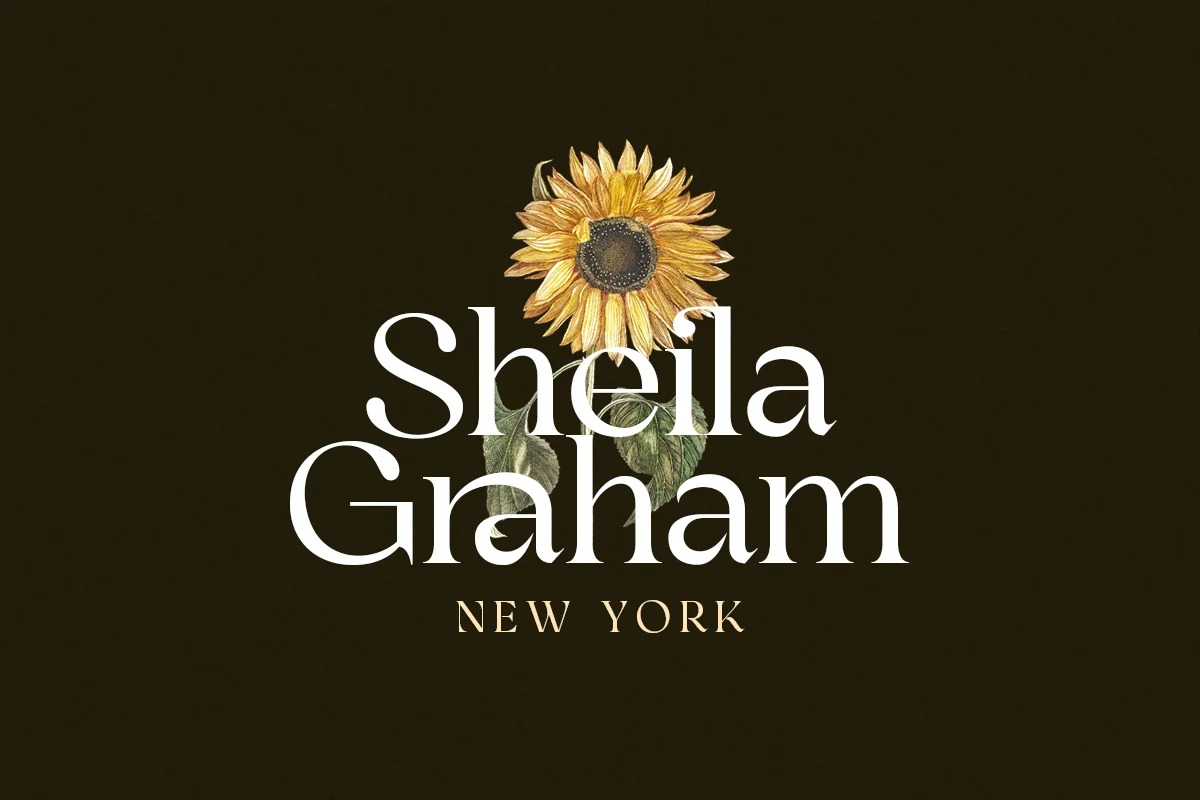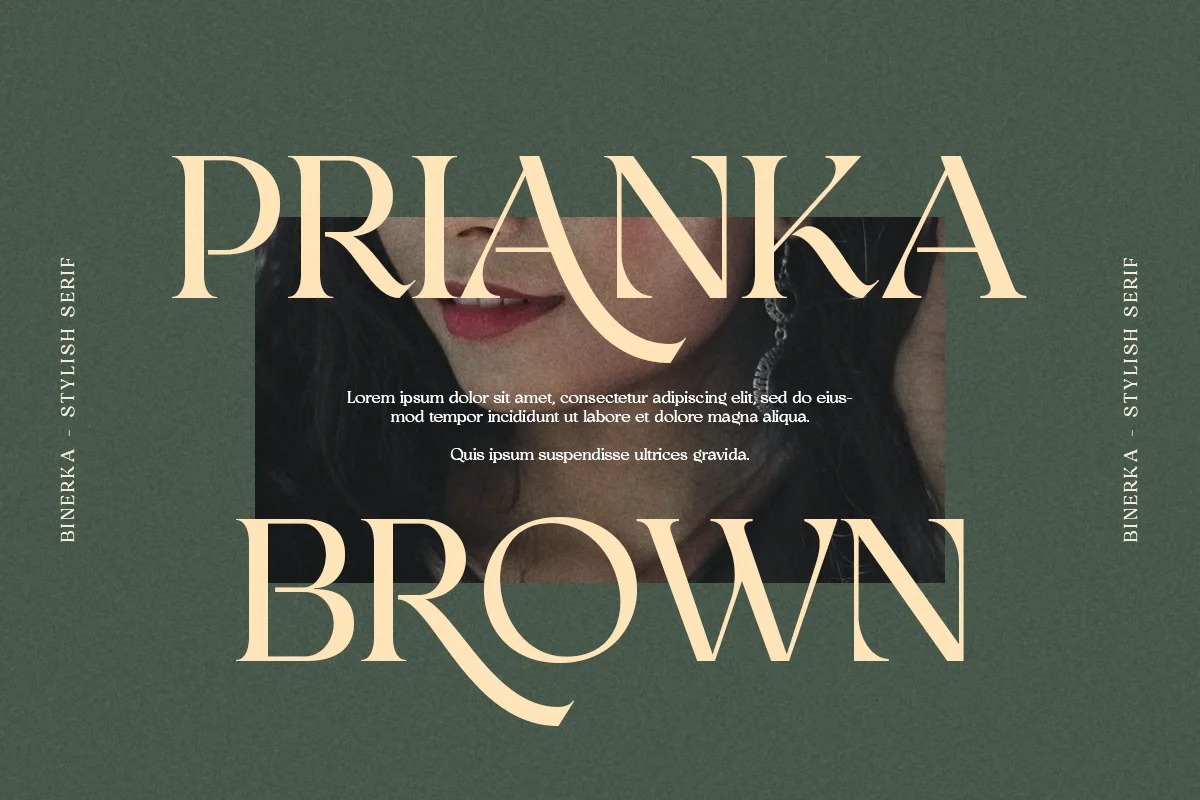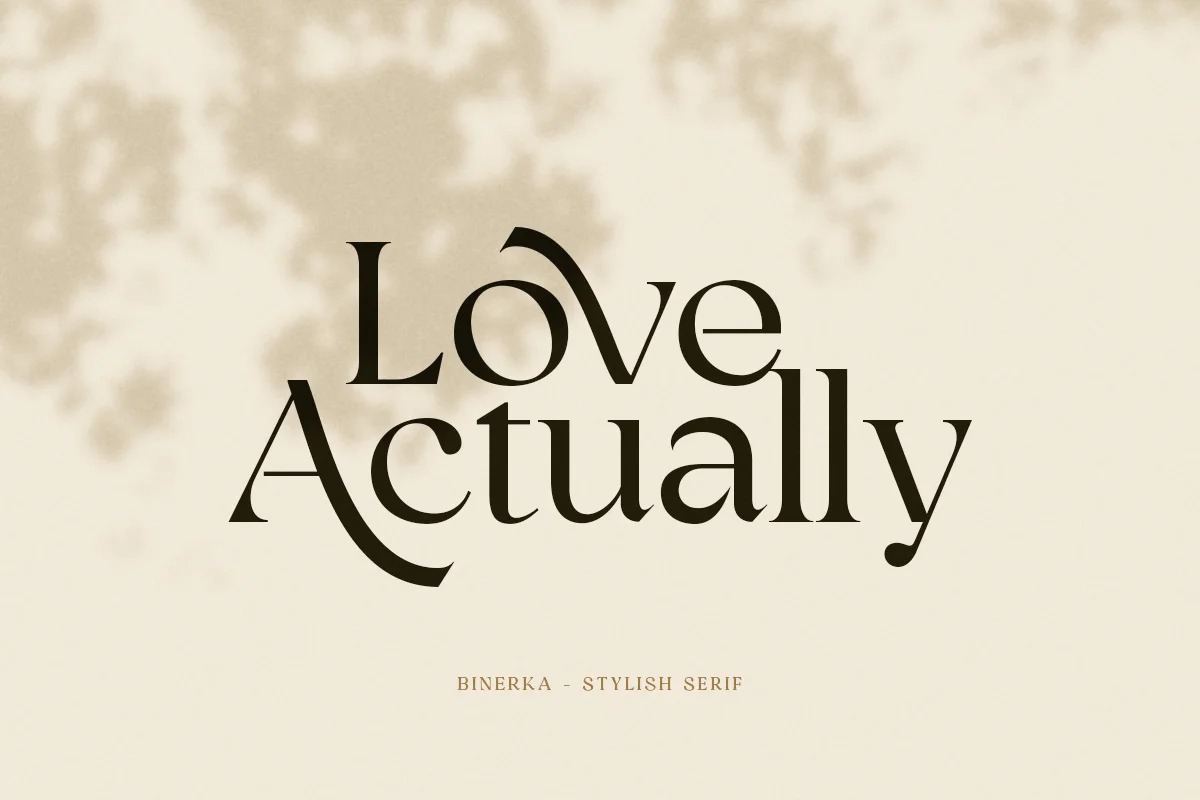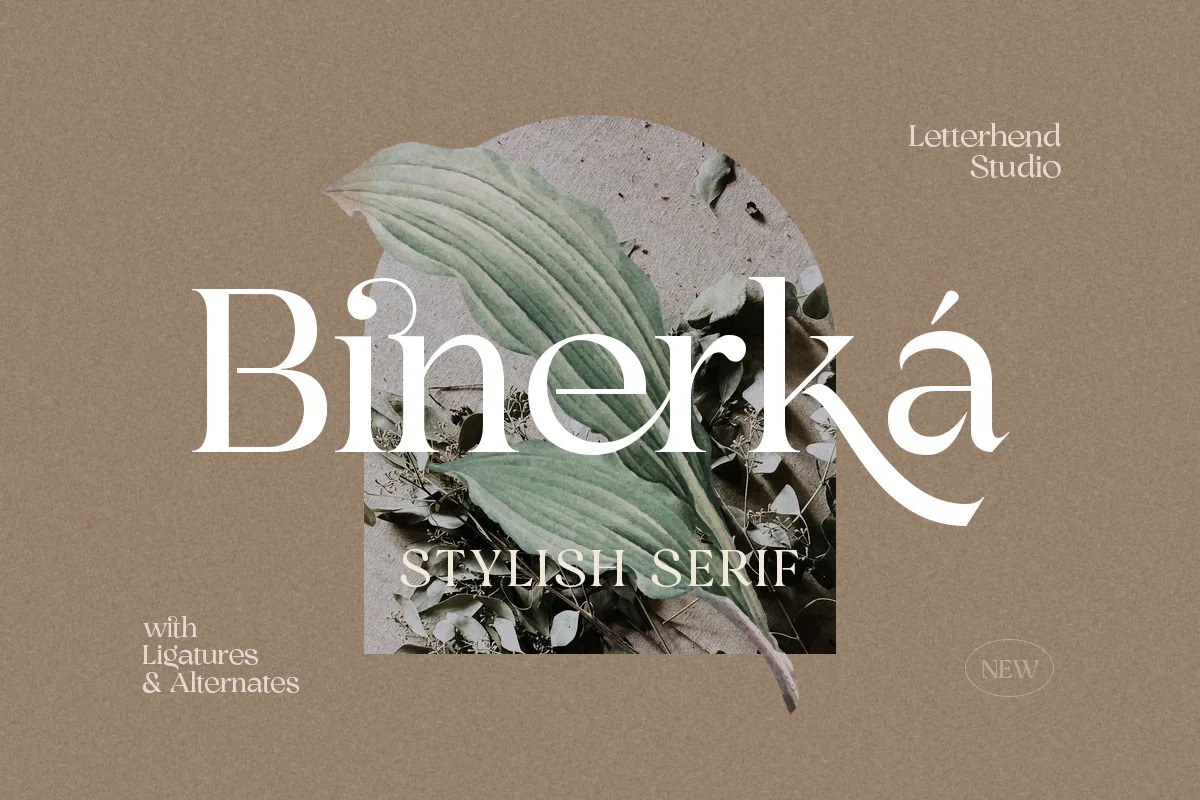
Bhinerka Font
Bhinerka Serif Font
This is an ornate serif font from designer Letterhend Studio. This font is impressive and features uniquely shaped letters. This typeface has can be used for modern theme or vintage looks with ligatures & alternates. Very suitable for logo, headline, tittle, and the other various formal forms such as invitations, labels, logos, magazines, books, greeting / wedding cards, packaging, fashion, make up, stationery, novels, labels or any type of advertising purpose.